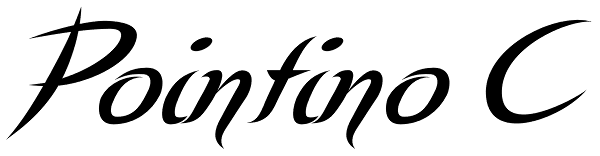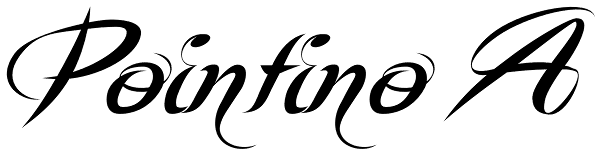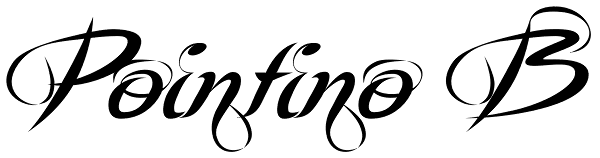
Pointino
Pointino is a very pointed script. It comes in three versions: Pointino-A has good looking curves, Pointino-B has more of those good looking curves and Pointino-C has fewer, but still sensational curves. Pointino is very sexy, as sexy as typefaces...
Pointino C
Pointino A
Pointino B